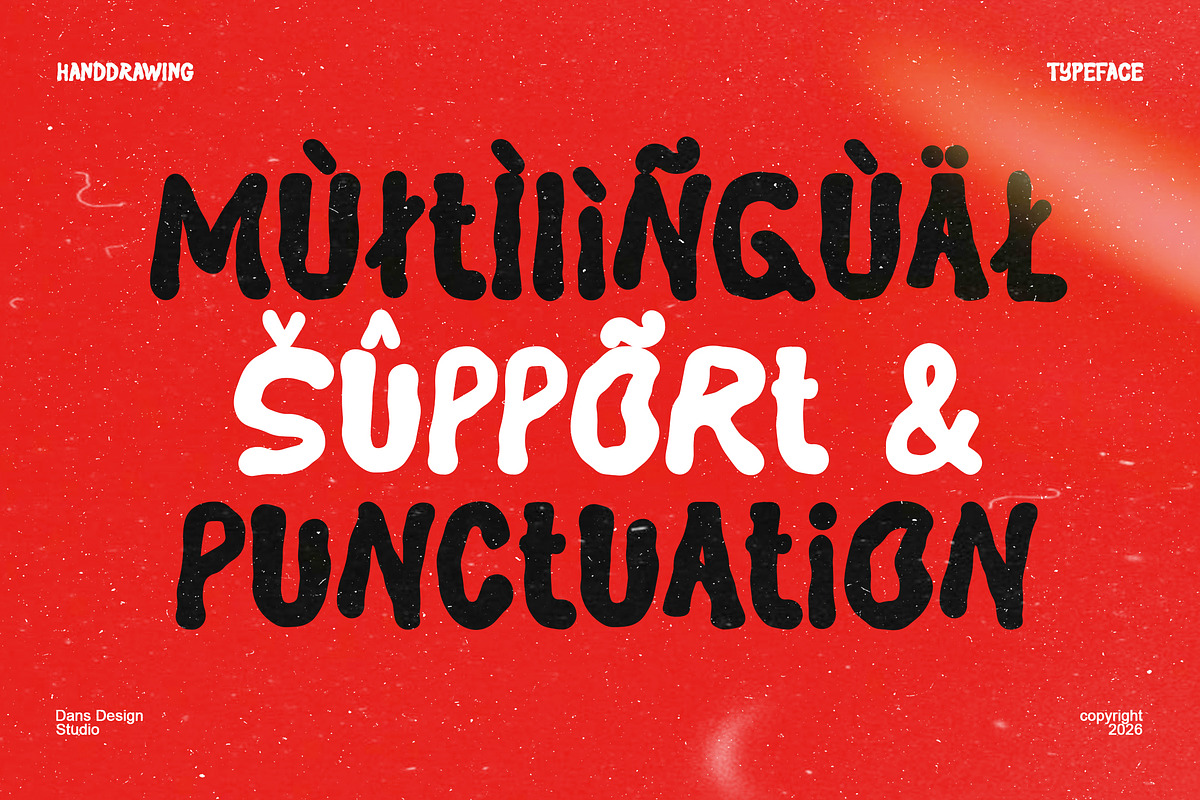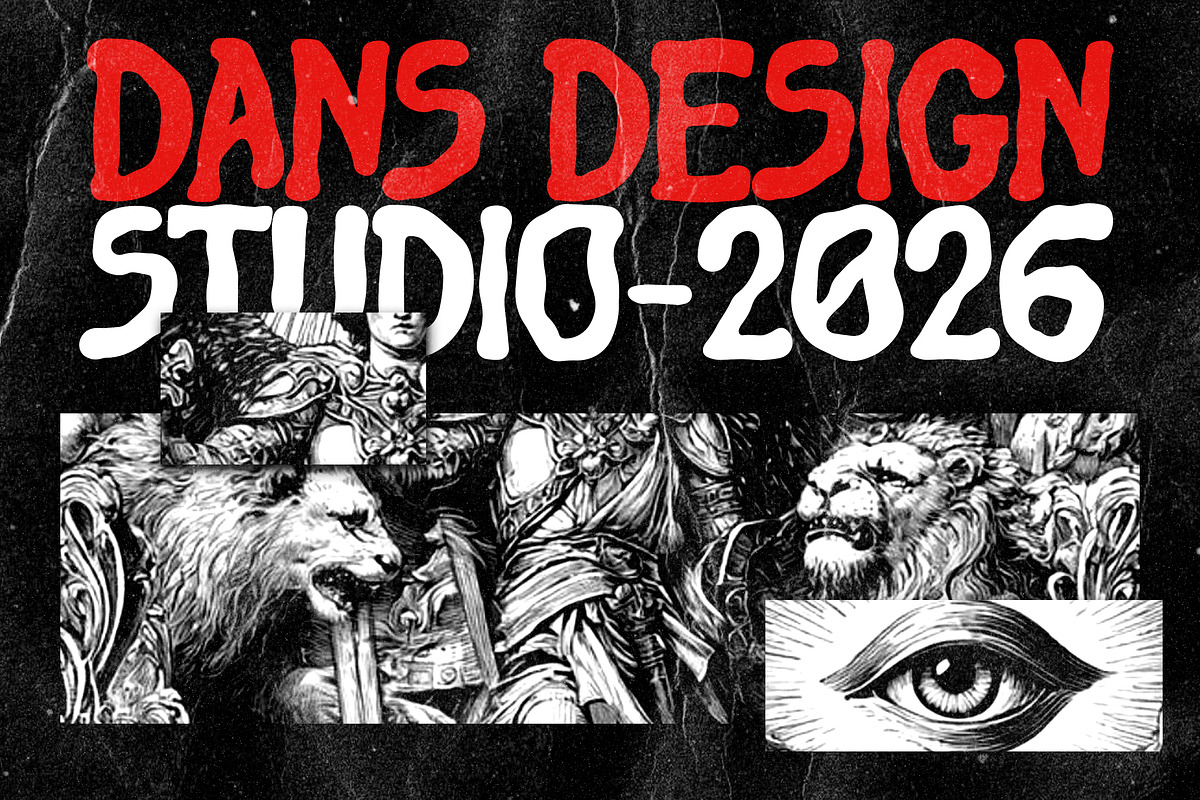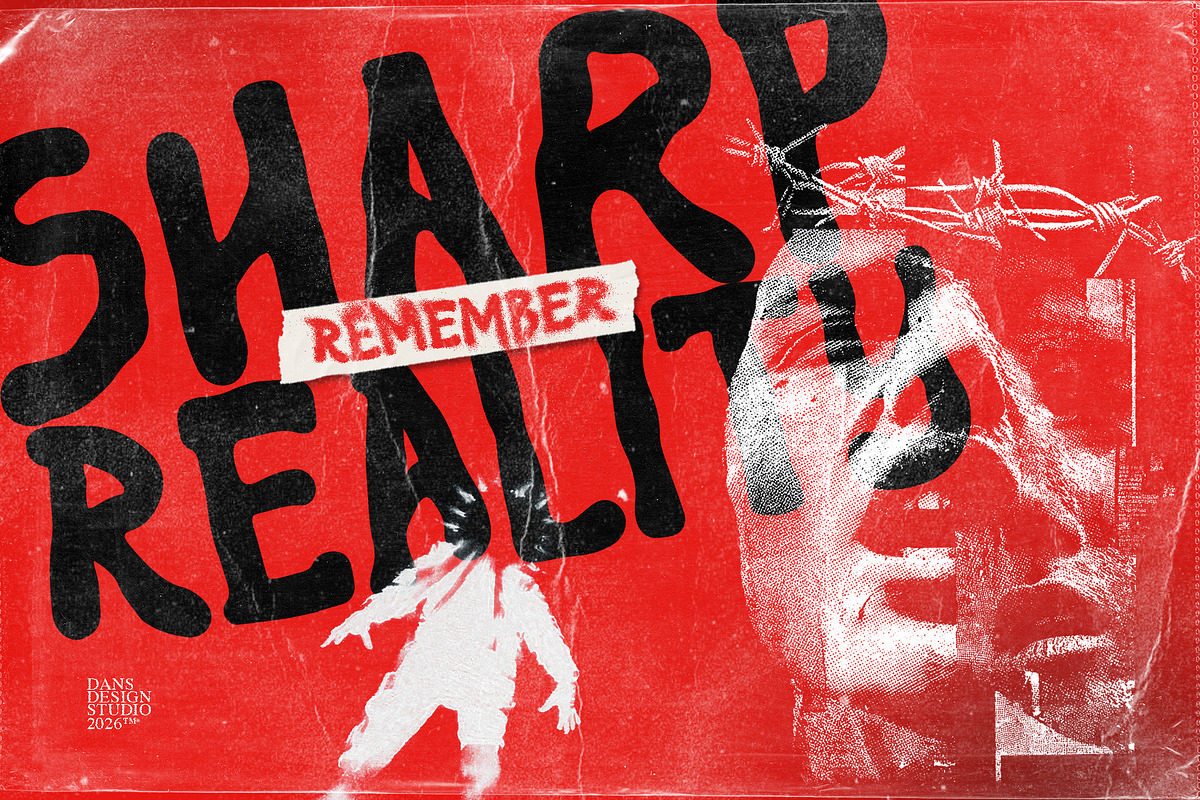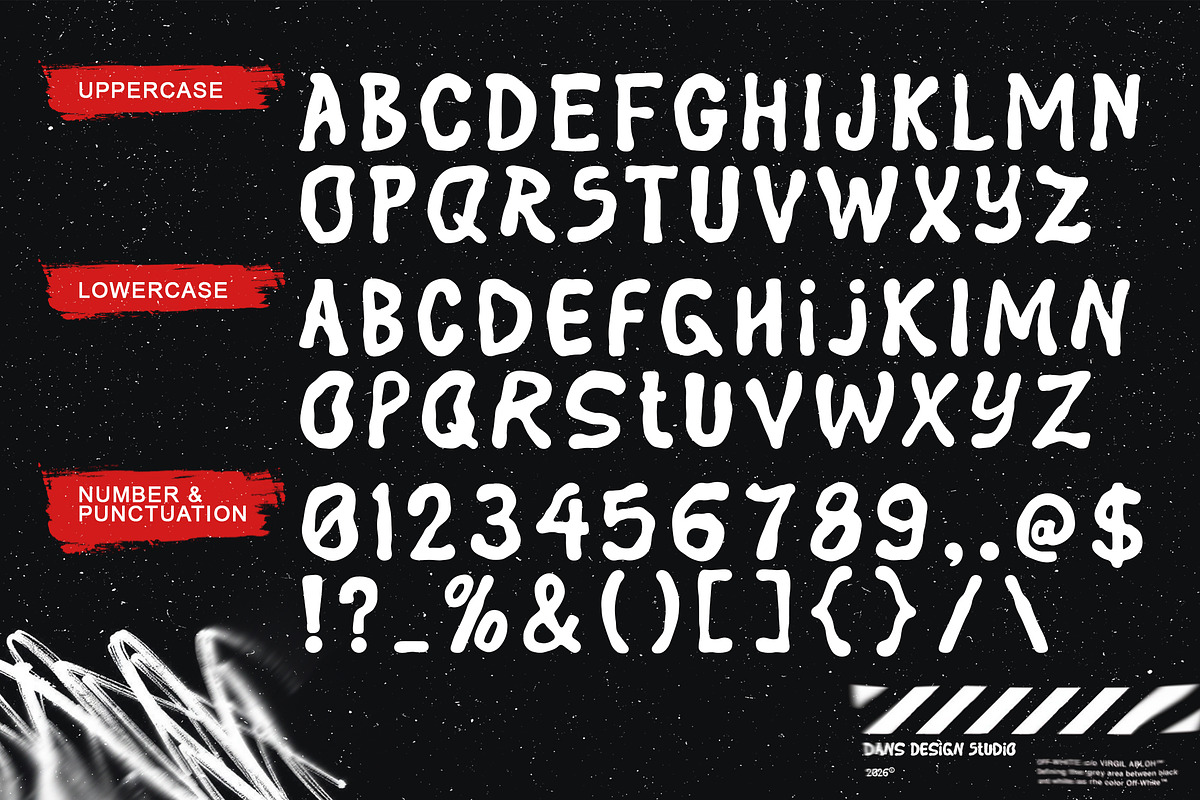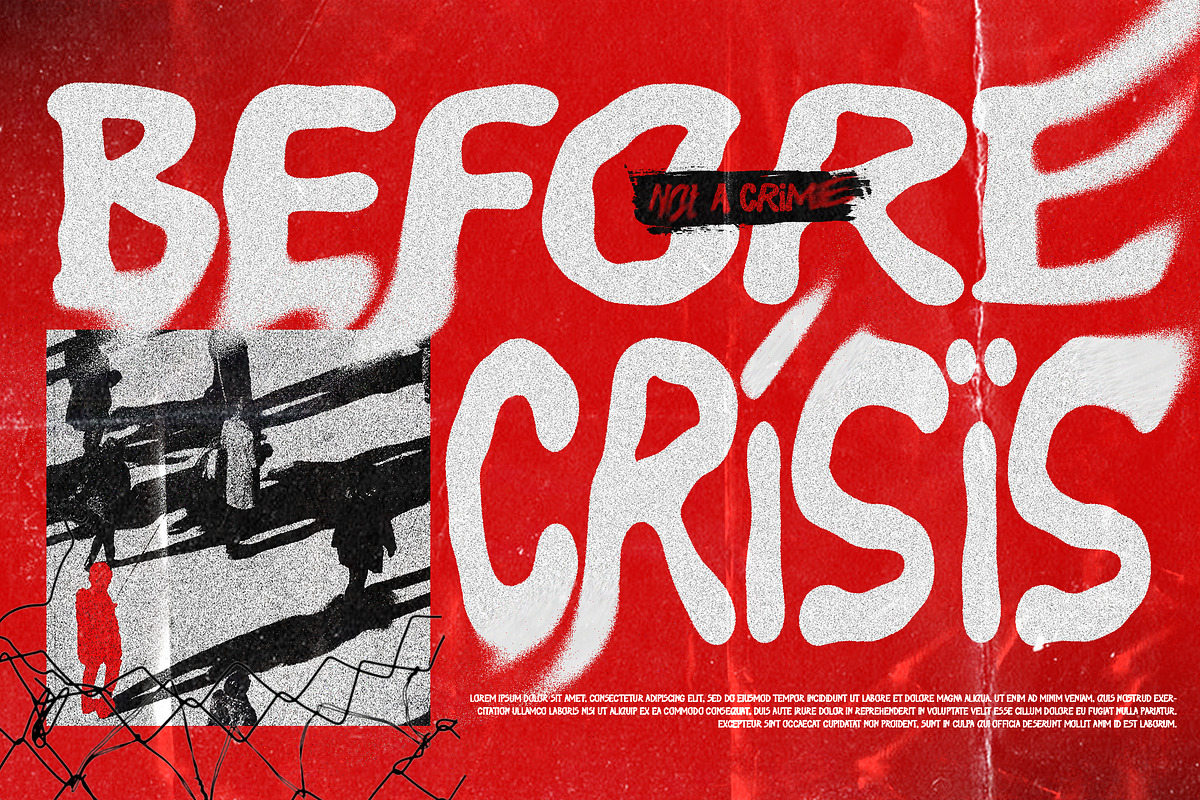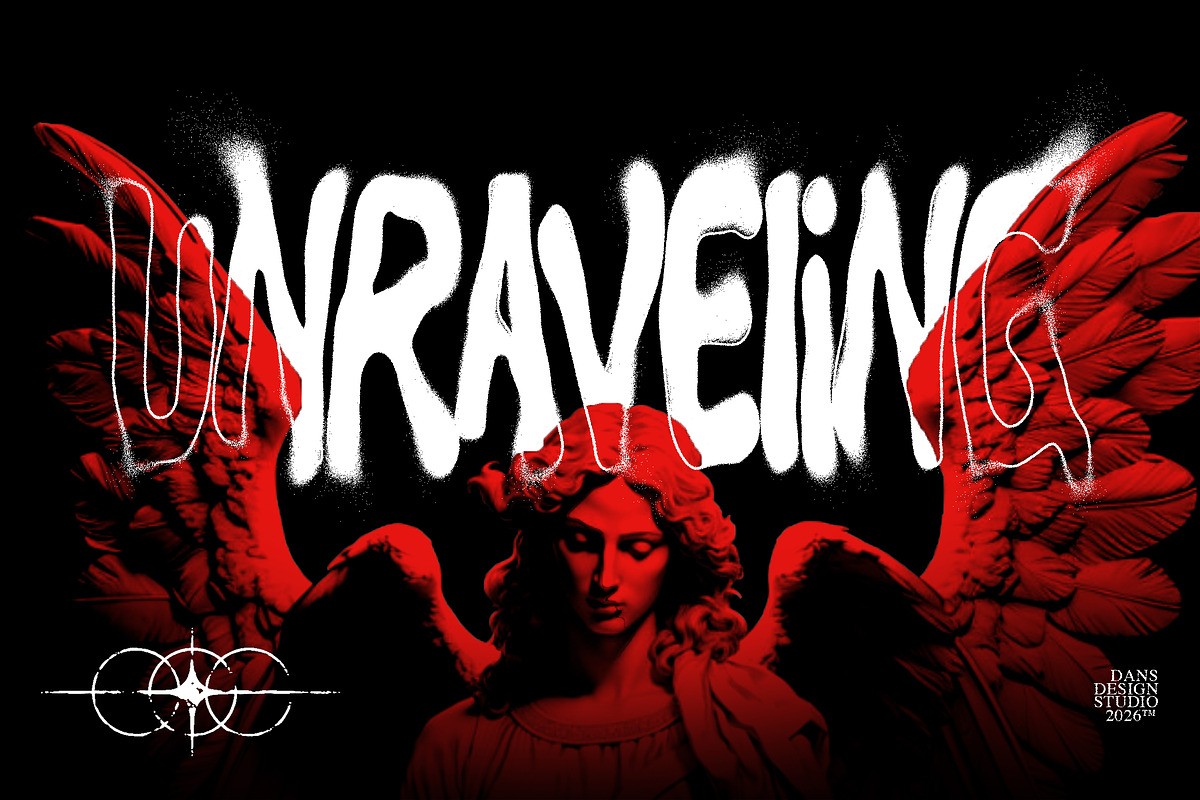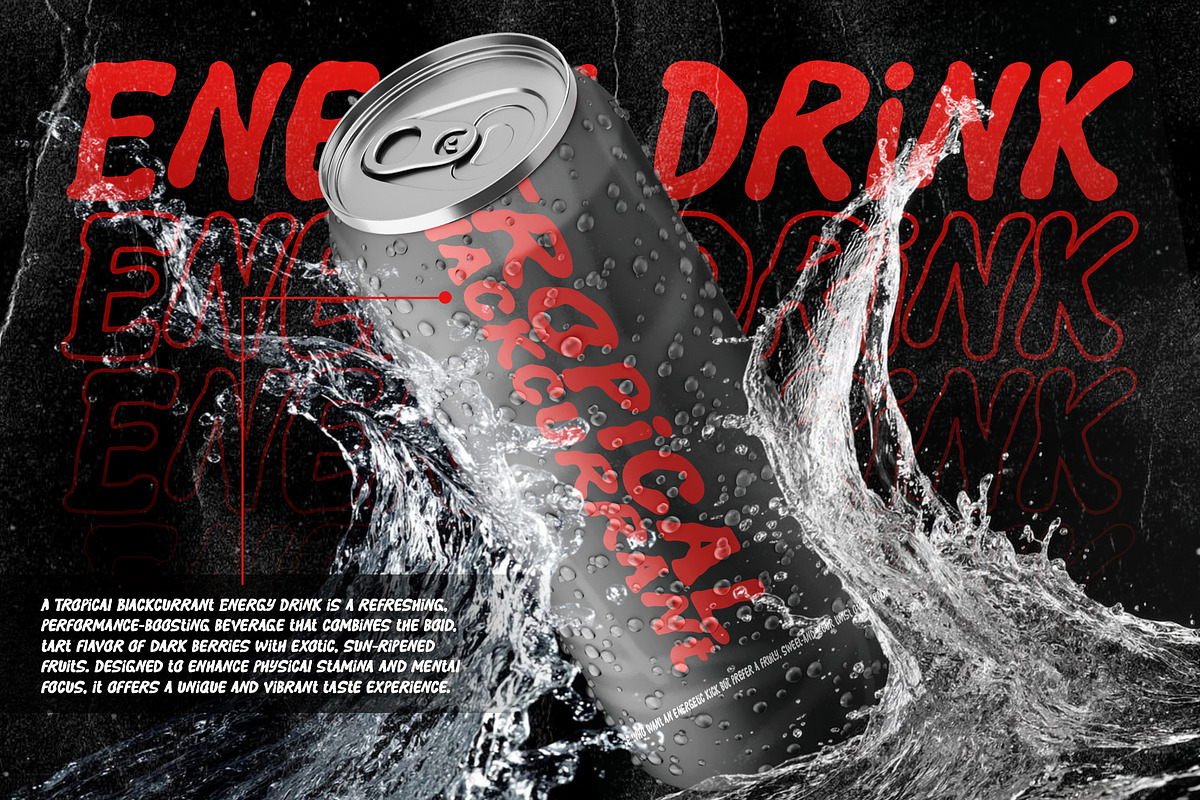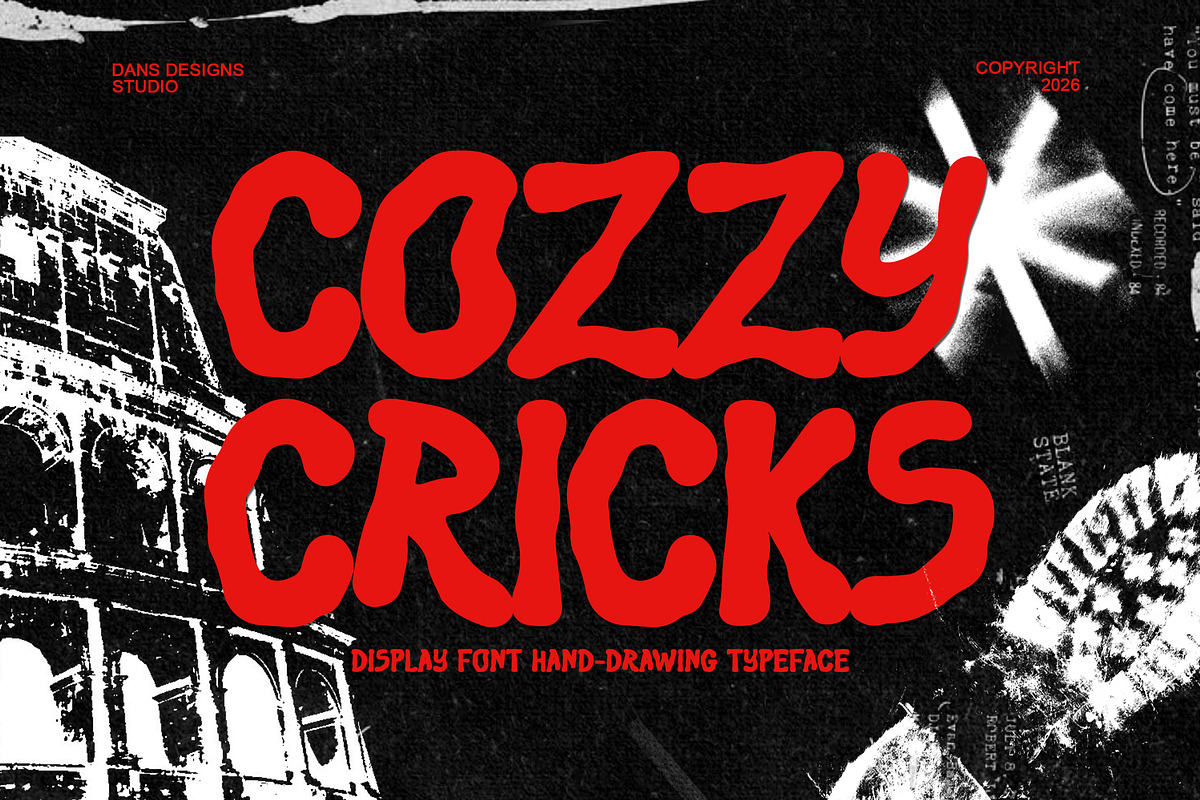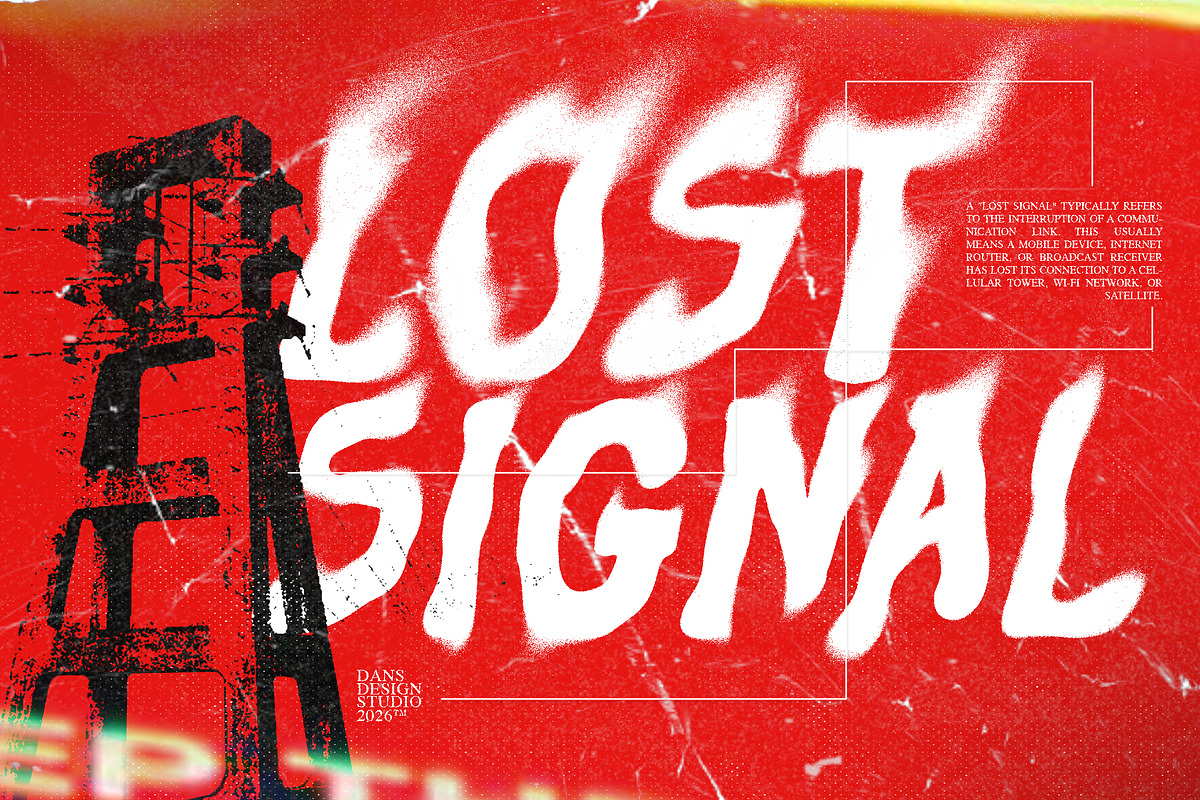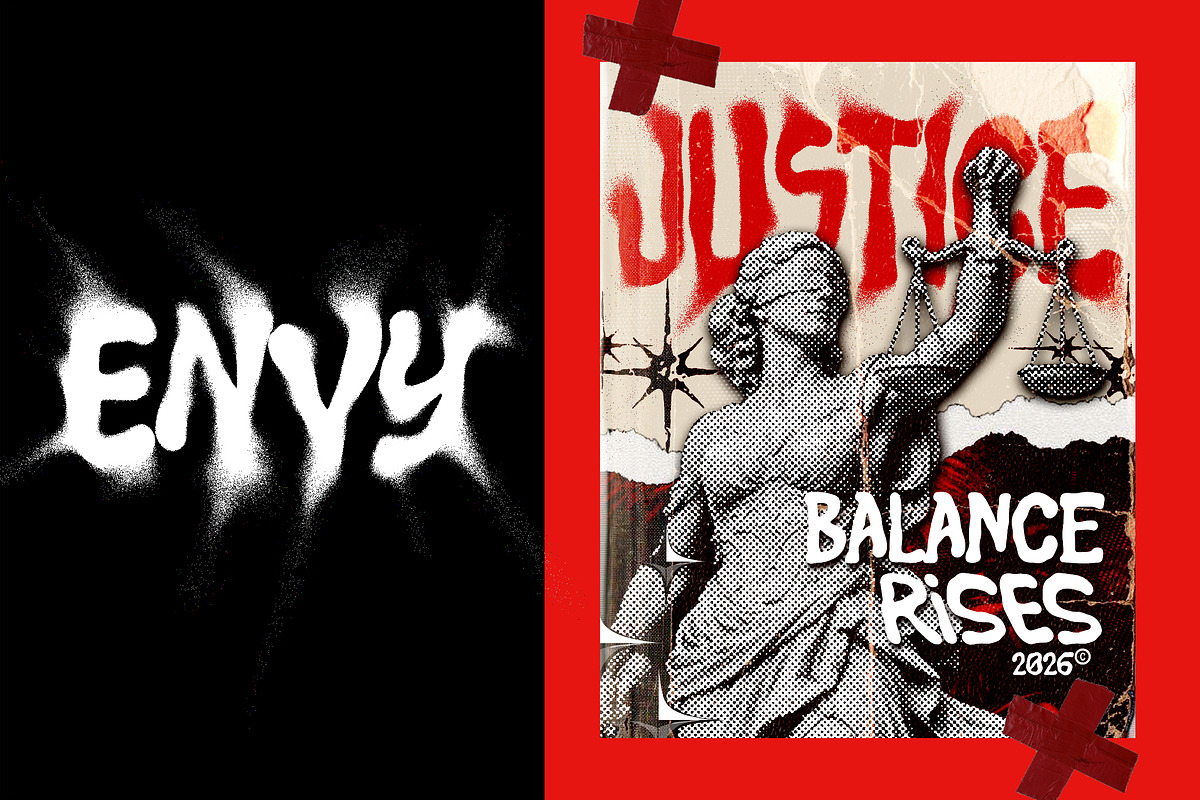
Cozzy Cricks Playful Hand Drawn
Cozzy Cricks is a bold hand-drawn display font that combines raw energy, creativity, and authentic character. Crafted with organic shapes and rough handcrafted details, it delivers a strong visual presence while maintaining excellent readability and a distinctive artistic appeal.
Perfect for sports branding, posters, merchandise, packaging, album covers, gaming graphics, streetwear-inspired designs, social media content, and impactful headlines, Cozzy Cricks brings a rugged, expressive style that makes every project stand out. Its textured and handcrafted look adds personality, attitude, and originality to modern creative work.
Uppercase & Lowercase Letters
Hand-Drawn Display Style
Add a cozy, fun, and creative touch to your designs with Cozzy Cricks, a display typeface made to bring character and charm to every word.